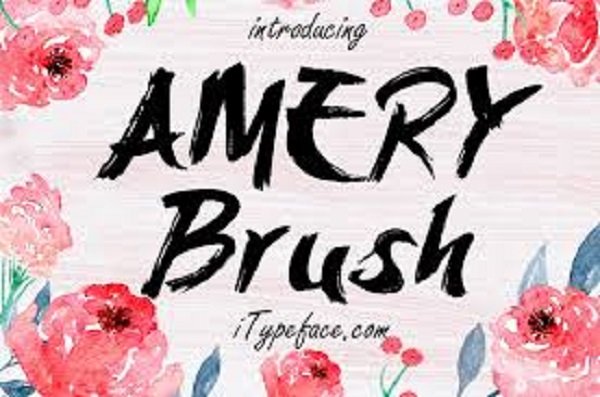
Amery Brush Font
Amery Brush is a handpainted typeface with rough brush looks and vintage sign painting style. It’s available in uppercase, lowercase, Extra, numbers and symbols. Easy to use in Adobe Illustrator or Adobe Photoshop. “Amery-Brush” is perfectly suited to stationery, logos and much more.